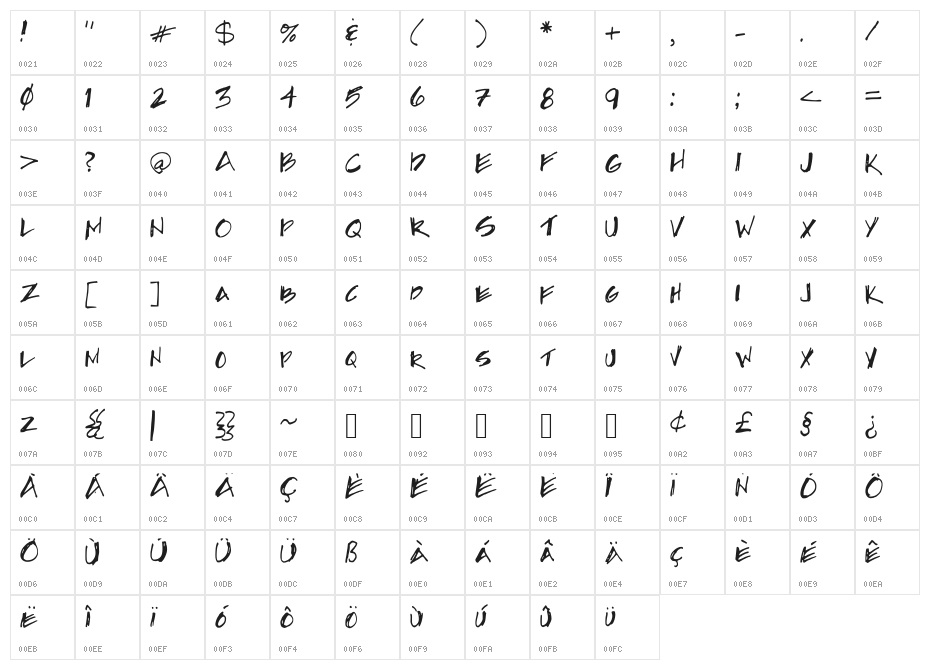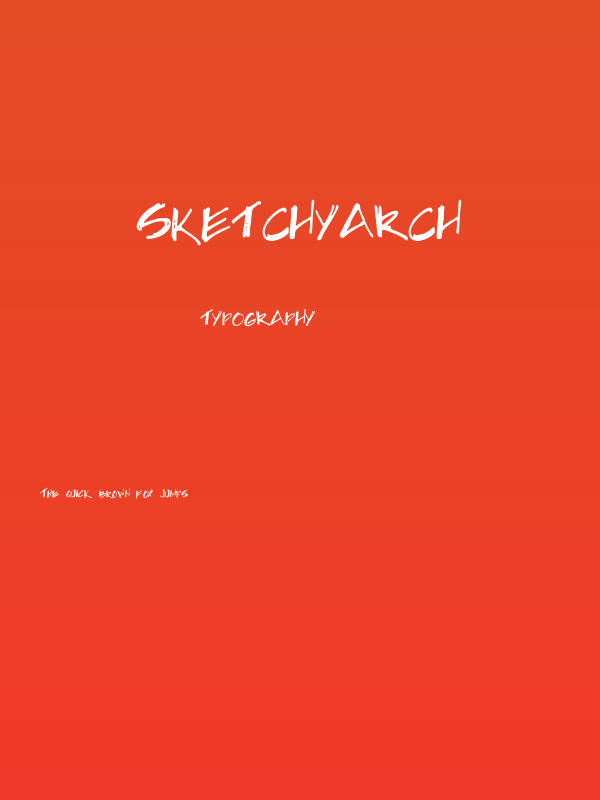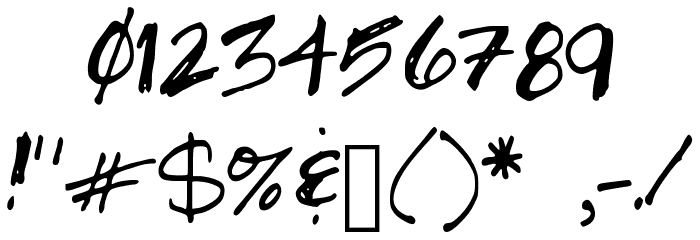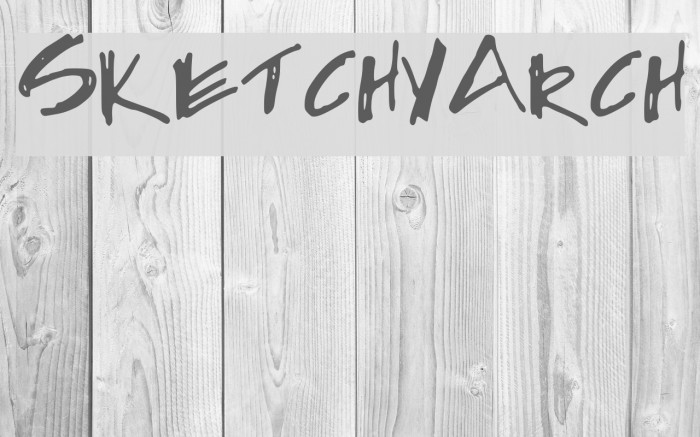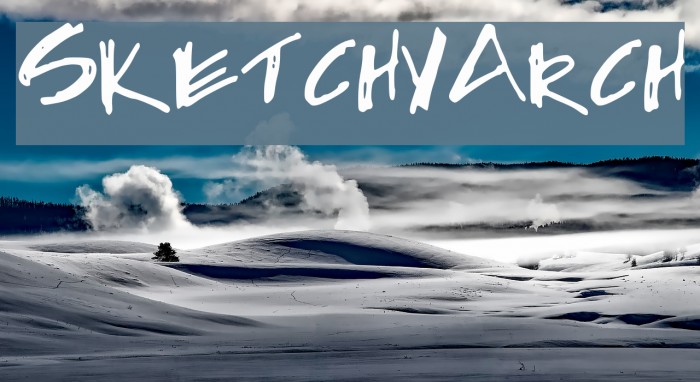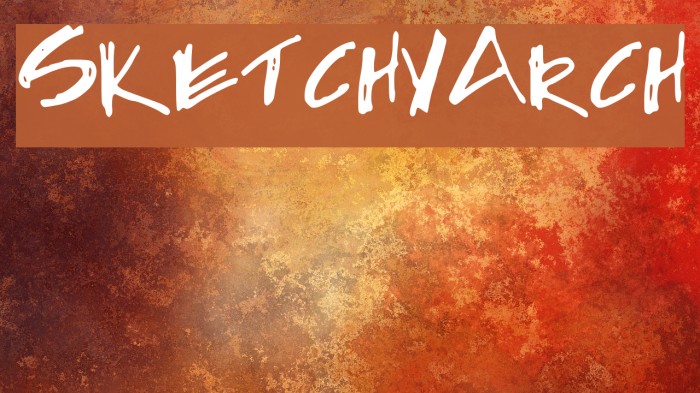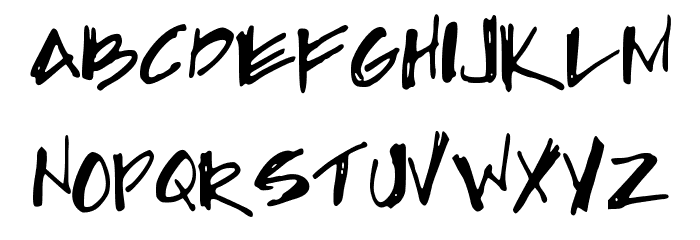
SketchyArch Font
SketchyArch Description
This font features a bold, energetic style with a hand-drawn appearance, reminiscent of quick sketches or graffiti. The uppercase and lowercase letters are crafted with irregular strokes, giving each character a unique and dynamic feel. The numbers and special characters maintain this lively aesthetic, making the font suitable for creative and informal designs. The strokes vary in thickness, adding to the font's expressive nature. The overall look is playful yet edgy, perfect for projects that require a touch of personality and flair.
| Proposed Projects | Ideal for posters, album covers, street art designs, and creative branding projects. |